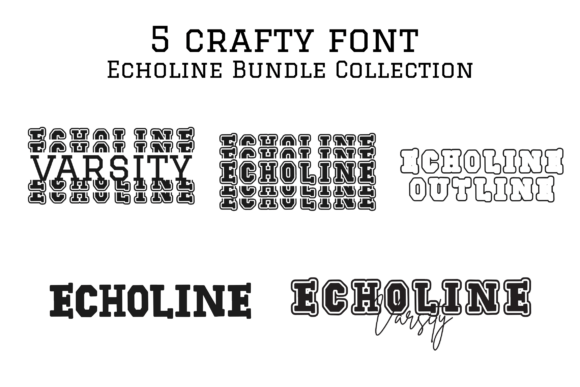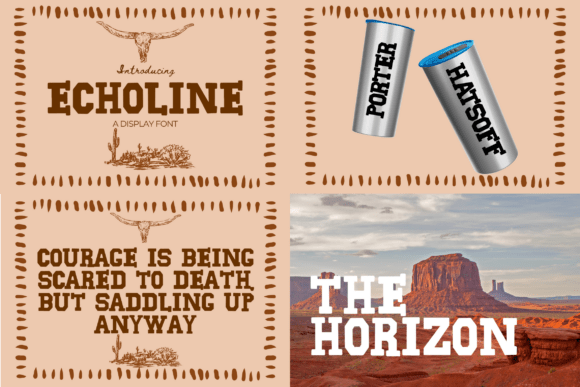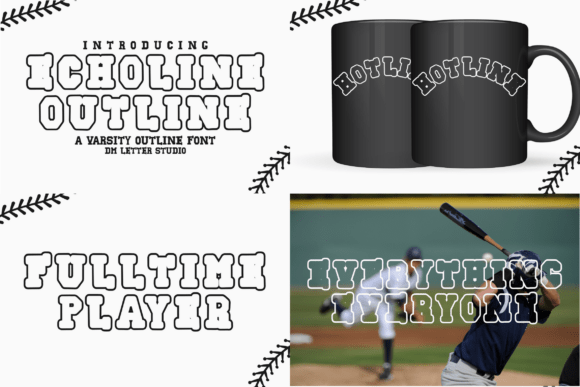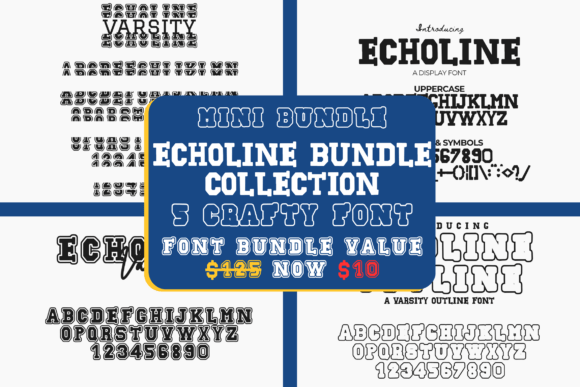
Introduction to Echoline Bundle Collection Font
Premium Bundle | Perfect for Logos, Branding & Crafts Unlock the power of handwritten elegance and bold display vibes with the Echoline Bundle – a curated collection of fonts designed to elevate your projects.
From chic signature scripts to chunky varsity styles, this bundle offers versatility for logos, packaging, quotes, wedding invitations, apparel, social media, and more Whether you’re a designer, crafter, or business owner, the Echoline Bundle gives you a wide range of creative fonts that blend style, personality, and usability in one powerful package.
Key Features of Echoline Bundle Collection Font
Why Choose Echoline Bundle Collection Font?
Echoline Bundle Collection Font offers exceptional quality and versatility, making it a valuable addition to your design toolkit. Whether you’re creating for personal projects or commercial use, Echoline Bundle Collection Font delivers professional results.